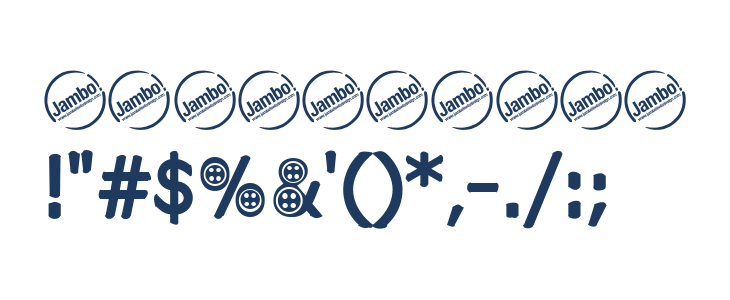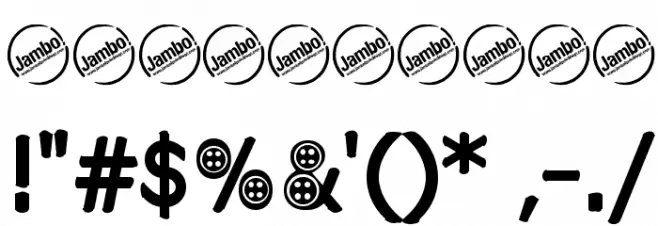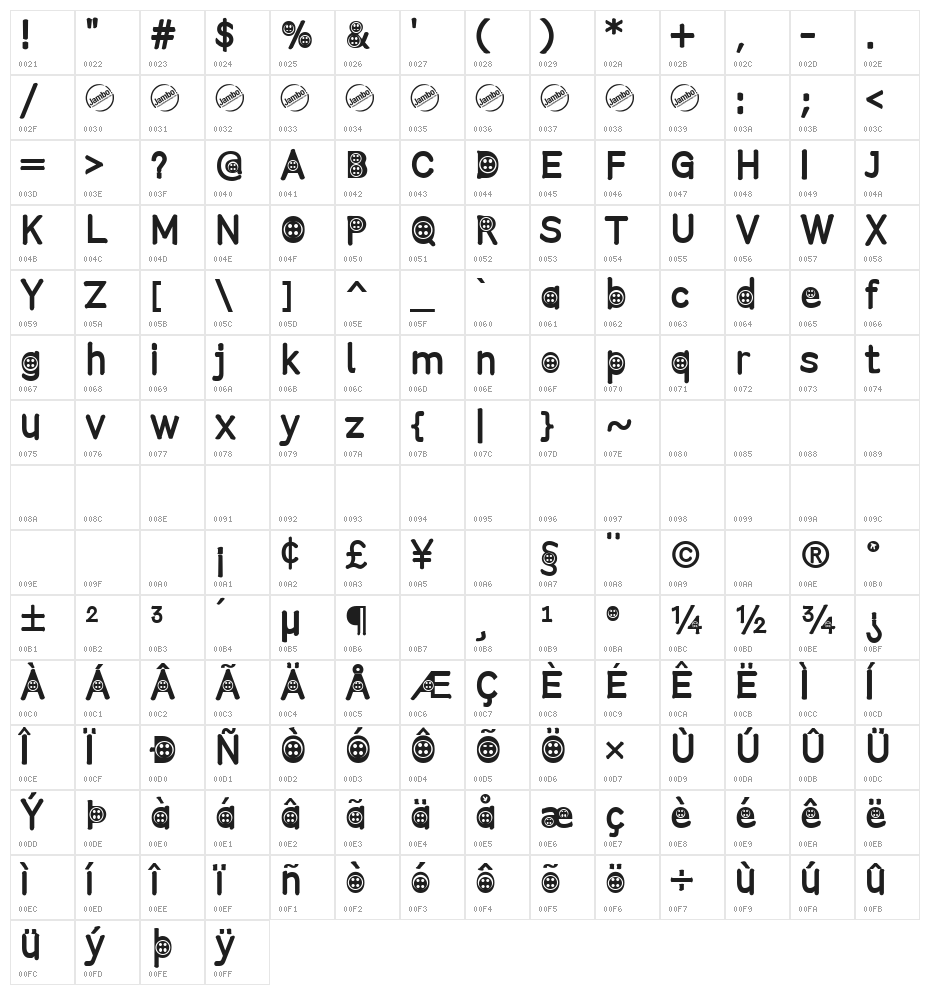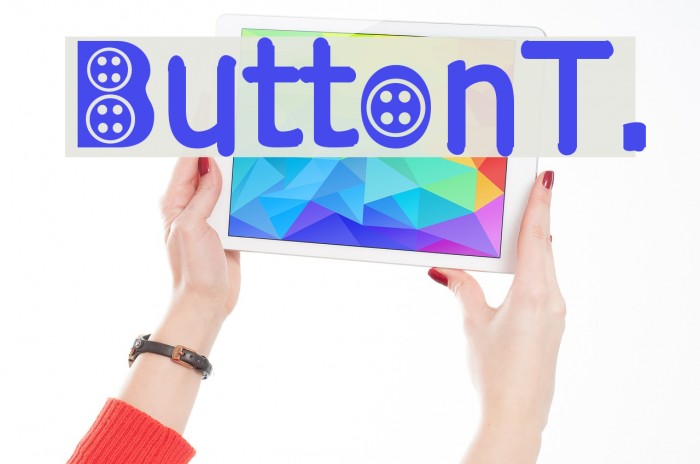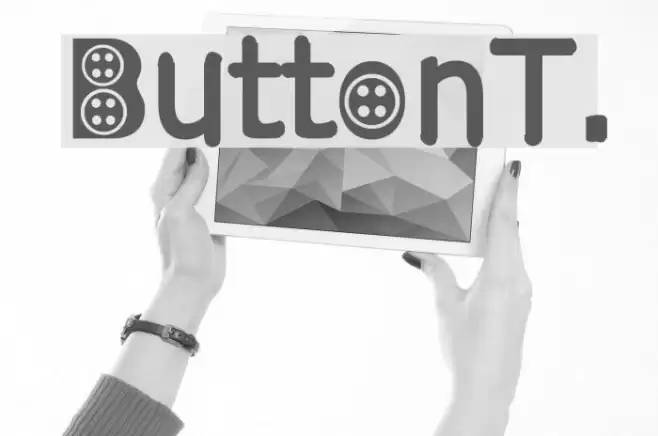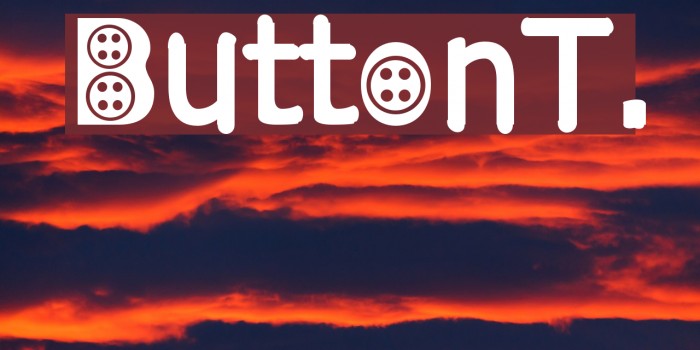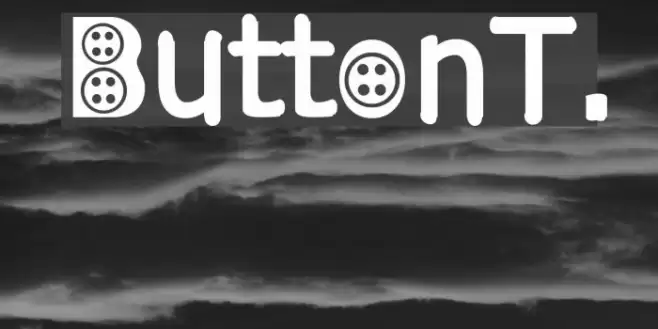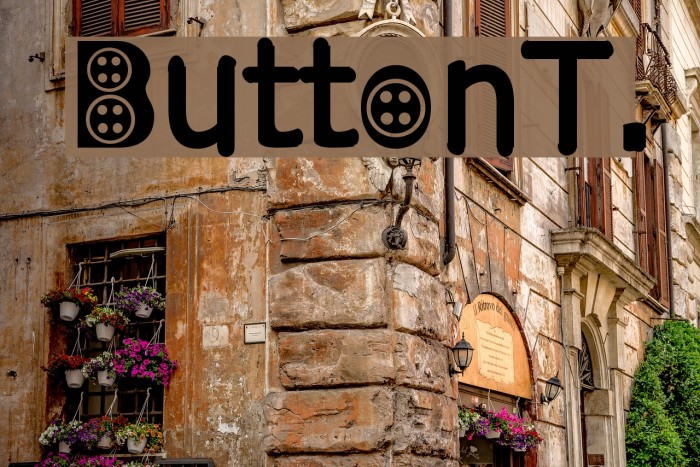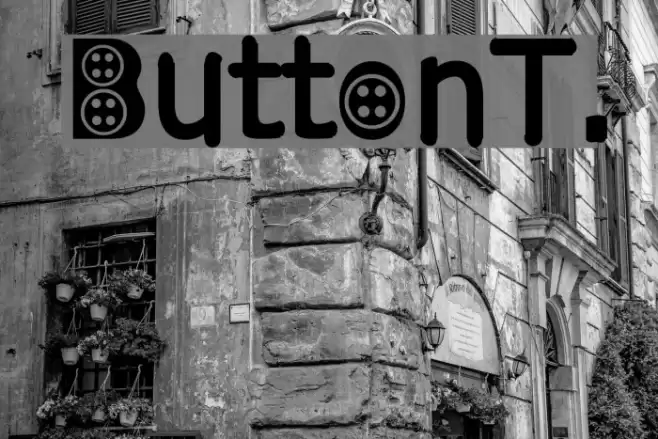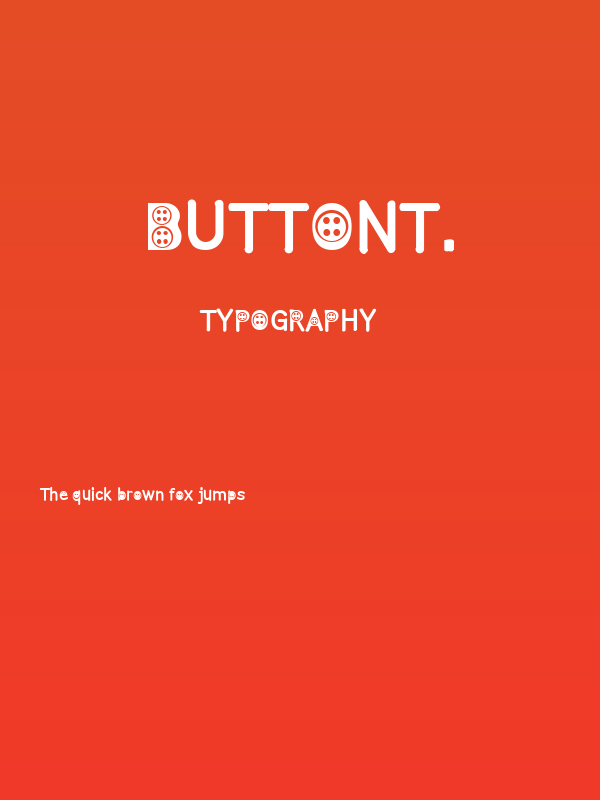
ButtonT. Font
ButtonT. Description
This playful and decorative font features a unique button motif incorporated into several characters, giving it a whimsical and creative appearance. The letters are bold and rounded, with a consistent stroke width that maintains readability while adding a touch of fun. The uppercase and lowercase letters are well-proportioned, and the numbers and special characters follow the same stylistic theme. The font's distinctive design makes it ideal for projects that require a lighthearted and engaging visual element. It is particularly suited for children's materials, crafts, or any design that benefits from a playful aesthetic.
Overall StylePlayful, Creative
Use CaseHeadlines, Logos, Creative projects
Proposed ProjectsIdeal for children's books, craft projects, playful branding, and creative packaging.